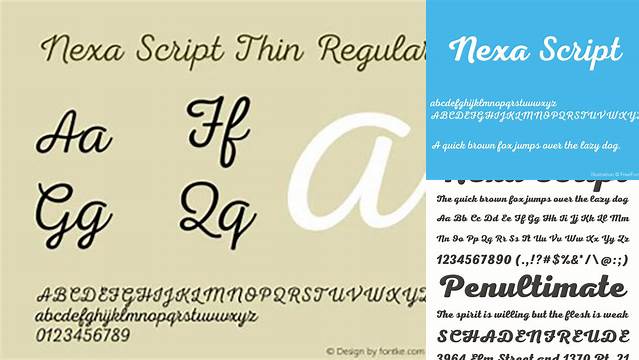
Hey guys! Are you on the hunt for a stylish and versatile script font that won't break the bank? Look no further! Let's dive into the world of Nexa Script, a fantastic free font that's perfect for a wide range of design projects. This article will explore everything you need to know about Nexa Script, from its unique characteristics and best uses to where you can download it and how to make the most of it in your designs. We'll also touch on some awesome alternatives if you're looking for something a little different. So, grab a coffee, get comfy, and let's get started!
What Makes Nexa Script So Special?
When it comes to choosing the right font for your project, there are tons of options out there. But Nexa Script really stands out from the crowd. Its unique blend of modern and classic styles gives it a timeless appeal that works well in various contexts. The flowing, elegant letterforms create a sense of sophistication and warmth, while the clean lines ensure readability and a contemporary feel. This makes Nexa Script incredibly versatile, suitable for everything from logos and branding to invitations and social media graphics. The slight slant and rounded terminals give it a friendly and approachable vibe, making your designs feel more personal and inviting. One of the key aspects that makes Nexa Script special is its legibility. While some script fonts can be difficult to read, especially in smaller sizes, Nexa Script maintains its clarity even at smaller point sizes. This is crucial for ensuring your message is effectively conveyed, whether you're designing a business card or a website header. The balance between its decorative flair and practical readability is what sets Nexa Script apart. Furthermore, the font family often includes multiple weights, providing you with even more flexibility in your design choices. This allows you to create visual hierarchy and add emphasis to different elements within your project. For instance, you might use a bolder weight for headlines and a lighter weight for body text, creating a balanced and visually appealing layout. Another factor contributing to Nexa Script's popularity is its extensive character set. It typically includes a wide range of glyphs, including uppercase and lowercase letters, numerals, punctuation marks, and special characters. Many versions also come with ligatures and alternate characters, allowing you to add unique stylistic touches to your typography. These extras can help you create truly bespoke designs that stand out. In essence, Nexa Script is more than just a font; it's a design tool that empowers you to express your creativity with style and elegance. Its combination of aesthetic appeal, readability, and versatility makes it a go-to choice for designers of all levels. Whether you're a seasoned professional or just starting out, Nexa Script can help you elevate your projects and achieve stunning results. So, let's explore some specific ways you can use this fantastic font in your designs.
Best Uses for Nexa Script: Where Does It Shine?
Okay, so we know Nexa Script is awesome, but where does it really shine? This font is a workhorse, guys, and can be used in so many different ways. One of the most popular applications is in logo design and branding. Its elegant and flowing style adds a touch of sophistication and personality, making it perfect for businesses that want to convey a sense of creativity and style. Think fashion brands, beauty salons, cafes, and boutique shops – Nexa Script can help create a memorable and distinctive visual identity. The font's legibility also makes it suitable for use in smaller logo elements, such as taglines or subheadings. Beyond logos, Nexa Script is fantastic for website headers and other prominent text elements. Its stylish appearance can draw the eye and create a strong first impression. Using it in headlines can add a touch of elegance and sophistication to your website design, making it more visually appealing and engaging for visitors. Just be sure to pair it with a clean and readable body font to ensure a balanced and user-friendly experience. In the realm of print design, Nexa Script excels in invitations, greeting cards, and stationery. Its flowing script style adds a personal and heartfelt touch, making it ideal for special occasions like weddings, birthdays, and anniversaries. Imagine a wedding invitation with elegant Nexa Script calligraphy – it instantly sets a tone of romance and sophistication. The font also works beautifully on business cards and letterheads, adding a touch of class and professionalism to your brand's printed materials. Social media graphics are another area where Nexa Script can make a big impact. Its stylish appearance can help your posts stand out in a crowded feed, attracting attention and engagement. Use it for quotes, announcements, or promotional messages to add a touch of elegance and personality to your social media presence. Just be mindful of readability and ensure the text is large enough to be easily seen on smaller screens. Furthermore, Nexa Script is a great choice for packaging design. Its elegant and stylish appearance can enhance the appeal of your product, making it more attractive to customers. Whether you're designing labels for bottles, boxes, or jars, Nexa Script can help you create packaging that stands out on the shelf. Its versatility allows it to be used in a variety of product categories, from food and beverages to cosmetics and personal care items. Lastly, don't forget the power of Nexa Script in creating eye-catching merchandise. From t-shirts and mugs to tote bags and posters, adding a touch of Nexa Script can transform a simple item into a stylish statement piece. Its flowing letters and elegant curves make it perfect for adding a touch of personality to your merchandise, making it more appealing to your target audience. In summary, the best uses for Nexa Script are those where you want to convey a sense of elegance, sophistication, and personality. Its versatility and legibility make it a valuable asset in a wide range of design projects, from branding and web design to print materials and social media graphics. So, go ahead and experiment with it – you might be surprised at how much it can elevate your designs!
Tips and Tricks for Using Nexa Script Effectively
So, you've got Nexa Script downloaded and ready to go – awesome! But how do you actually use it to create killer designs? Don't worry, guys, I've got you covered with some handy tips and tricks to make the most of this fantastic font. First things first, think about legibility. While Nexa Script is more readable than many script fonts, it's still important to use it strategically. Avoid using it for large blocks of body text, as the flowing script style can become tiring on the eyes. Instead, reserve it for headings, titles, logos, and other display elements where you want to make a statement. For body text, opt for a clean and readable sans-serif or serif font that complements Nexa Script without competing with it. Pairing fonts is an art in itself, and the right combination can elevate your designs to the next level. When pairing Nexa Script, look for fonts that offer a strong contrast in style but maintain a harmonious balance. A classic sans-serif like Open Sans or Montserrat can create a modern and clean look, while a traditional serif like Merriweather or Playfair Display can add a touch of elegance and sophistication. Experiment with different combinations to find what works best for your project. Another important tip is to pay attention to letter spacing and line height. Script fonts often require more generous spacing than other font styles to maintain readability and prevent overlapping characters. Adjust the letter spacing (also known as tracking) and line height (also known as leading) to create a comfortable reading experience and enhance the visual appeal of your typography. A little extra space can go a long way in making your text look more polished and professional. Don't be afraid to play with Nexa Script's alternate characters and ligatures. Many script fonts include these special glyphs, which can add unique stylistic flourishes to your designs. Ligatures are two or more characters that are joined together to form a single glyph, while alternate characters offer different versions of individual letters. These extras can help you create a more bespoke and handcrafted look, making your typography stand out from the crowd. If your version of Nexa Script includes multiple weights, use them to create visual hierarchy and add emphasis to your text. Bolder weights can be used for headings and titles, while lighter weights can be used for subheadings or secondary text elements. This helps guide the reader's eye and creates a clear visual structure within your design. Experiment with different weights to see how they impact the overall look and feel of your typography. When using Nexa Script in logos or branding materials, consider the overall message and tone you want to convey. The font's elegant and flowing style is well-suited for businesses that want to project a sense of creativity, sophistication, or personal touch. However, it may not be the best choice for brands that want to convey a more serious or corporate image. Think about your target audience and the values you want to communicate, and choose a font that aligns with your brand identity. Lastly, don't overdo it! While Nexa Script is a beautiful font, using it too much can dilute its impact. Use it sparingly and strategically to create focal points and add visual interest to your designs. A little bit of Nexa Script can go a long way in transforming your typography and making your projects shine. In conclusion, using Nexa Script effectively is all about balancing its elegance and style with readability and visual hierarchy. By following these tips and tricks, you can harness the full potential of this fantastic font and create stunning designs that capture attention and communicate your message effectively. Now, let's take a look at some alternatives if you're looking for something a bit different.
Nexa Script Alternatives: Exploring Similar Fonts
Okay, so Nexa Script is awesome, but maybe you're looking for something with a slightly different vibe. No problem! There are tons of other fantastic script fonts out there that offer similar elegance and versatility. Let's explore some Nexa Script alternatives that might be perfect for your next project. One popular option is Great Vibes. This font shares a similar flowing style and elegant letterforms with Nexa Script, making it a great choice for invitations, wedding designs, and other projects where you want to convey a sense of romance and sophistication. Great Vibes has a slightly more traditional feel than Nexa Script, which can be a plus if you're aiming for a classic look. Another excellent alternative is Pacifico. This font has a more casual and playful vibe than Nexa Script, making it ideal for logos, branding, and social media graphics. Pacifico's rounded letterforms and flowing lines give it a friendly and approachable feel, perfect for businesses that want to connect with their audience on a personal level. If you're looking for a script font with a more modern and minimalist aesthetic, Bukhari Script is a great choice. This font features clean lines and a contemporary design, making it well-suited for web design, packaging, and other projects where you want to create a sleek and stylish look. Bukhari Script has a slightly more geometric feel than Nexa Script, which can be a plus if you're aiming for a modern and sophisticated vibe. For a font that exudes elegance and luxury, consider Lobster. This bold and eye-catching script font is perfect for headlines, titles, and logos. Lobster's distinctive letterforms and dramatic flourishes make it a standout choice for projects where you want to make a statement. However, it's important to use Lobster sparingly, as its bold style can be overwhelming if overused. Scriptina is another beautiful script font that offers a more delicate and refined look. This font features thin, flowing lines and elegant letterforms, making it ideal for invitations, stationery, and other projects where you want to convey a sense of grace and sophistication. Scriptina has a more traditional feel than Nexa Script, which can be a plus if you're aiming for a classic and timeless design. If you're looking for a script font with a more handwritten feel, Brush Script MT is a classic choice. This font mimics the look of hand-lettered calligraphy, giving it a personal and authentic touch. Brush Script MT is a great option for projects where you want to create a warm and inviting feel, such as greeting cards, posters, and social media graphics. Another fantastic alternative is * চ্যানেলের подписক হন*. This font has a unique charm, blending elegance with a touch of playfulness. Its flowing strokes and distinct character make it perfect for branding, invitations, and creative projects that need a personal touch. Consider using it to add a sophisticated yet approachable feel to your designs. When choosing a Nexa Script alternative, it's important to consider the overall tone and style of your project. Think about the message you want to convey and the audience you're trying to reach, and select a font that aligns with your goals. Experiment with different options and don't be afraid to mix and match fonts to create a unique and visually appealing design. In conclusion, while Nexa Script is a fantastic font, there are many other script fonts out there that offer similar elegance and versatility. By exploring these alternatives, you can expand your typographic palette and find the perfect font for every project. So, go ahead and experiment with different options and see what sparks your creativity!
Conclusion: Unleash Your Creativity with Nexa Script
Alright, guys, we've reached the end of our deep dive into Nexa Script, and I hope you're as excited about this font as I am! From its elegant and versatile style to its wide range of applications, Nexa Script is a fantastic tool for any designer looking to add a touch of sophistication and personality to their projects. We've covered everything from what makes Nexa Script special and where it shines to where you can download it for free and how to use it effectively. We've also explored some awesome alternatives if you're looking for something a little different. The key takeaway here is that typography is a powerful element in design, and choosing the right font can make all the difference in how your message is perceived. Nexa Script, with its unique blend of modern and classic styles, offers a versatile solution for a wide range of design needs. Whether you're designing a logo, a website, an invitation, or a social media graphic, Nexa Script can help you create visually stunning and engaging designs. But remember, using a font effectively is about more than just picking something pretty. It's about understanding the font's characteristics, considering its legibility, and pairing it with other fonts in a way that creates harmony and balance. It's also about being mindful of your brand identity and the message you want to convey. So, take the tips and tricks we've discussed to heart, experiment with different approaches, and don't be afraid to break the rules and push the boundaries of your creativity. Nexa Script is just one tool in your design arsenal, but it's a powerful one. By mastering its nuances and learning how to use it effectively, you can elevate your designs and create work that truly stands out. And remember, the best way to learn is by doing. So, download Nexa Script, start experimenting, and see what you can create. You might be surprised at the amazing results you can achieve. Whether you're a seasoned designer or just starting out, I encourage you to unleash your creativity and explore the possibilities that Nexa Script has to offer. It's a font that's sure to become a staple in your design toolkit, and I can't wait to see what you create with it! Happy designing, guys!